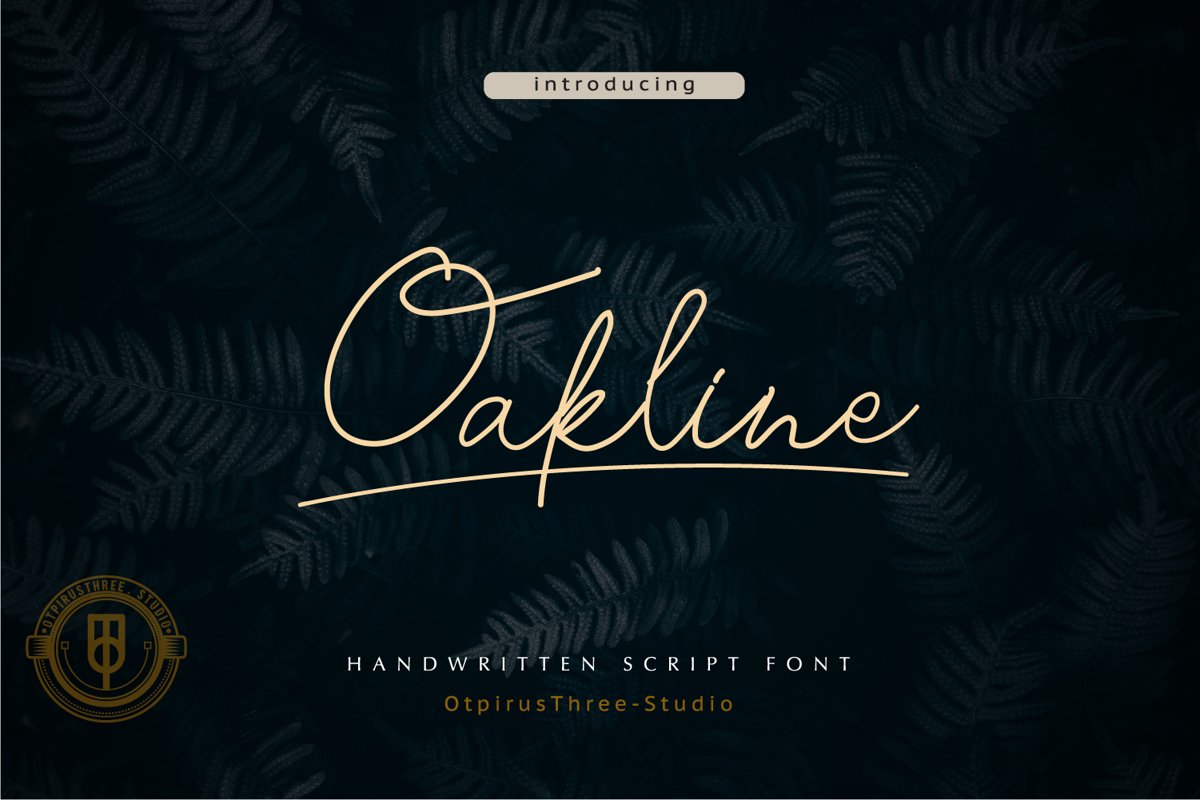
Oakline
Oakline is a casual handwritten font. It features a relaxed and elegant feel. This versatility will apply to a wide range of applications from stationery, to social media posts – the only limit is your imagination!
Oakline
By Otpirusthree Studio